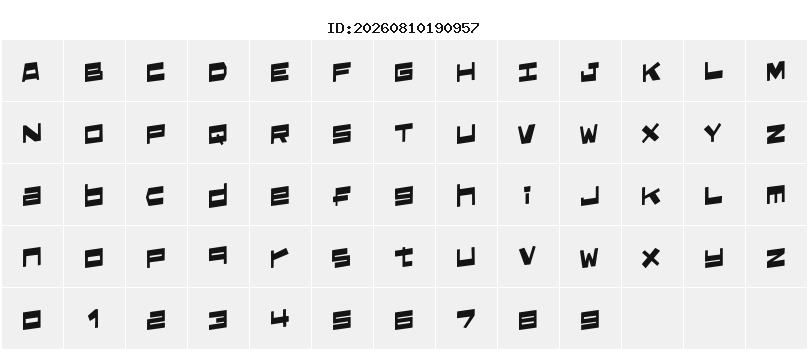
Quadric Preview
• Font Name: Quadric
• Font Style: Slant
• Font ID: Macromedia Fontographer 4.1 Quadric Slant
• Full Font Name: Quadric Slant
• PostScript Name: QuadricSlant
About Quadric.ttf
Quadric.ttf is a modern, elegant sans-serif font designed for ultimate readability and visual harmony. Perfect for branding, headlines, web design, and print materials.